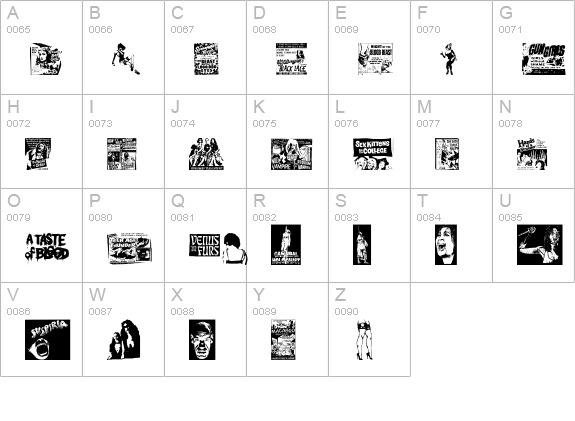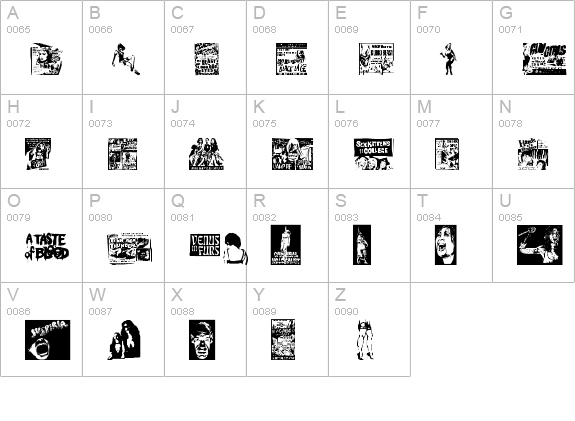
B Movie Dings Font Details
Introducing B Movie Dings, a whimsical and nostalgic font that takes you back to the golden age of B movies. With its quirky and eclectic design, this font captures the essence of the low-budget films that became cult classics. B Movie Dings is the perfect choice for any project that requires a touch of retro charm. Whether you're designing a movie poster, creating a vintage-inspired logo, or adding a unique flair to your social media graphics, this font will bring a sense of fun and playfulness to your work. And the best part? B Movie Dings is available for free! That's right, you can easily download this font without spending a dime. Simply head over to FontsMarket.com and start using it in your projects today. With its wide range of characters and symbols, B Movie Dings offers endless possibilities to let your creativity shine. So why wait? Embrace the spirit of B movies and add a touch of nostalgia to your designs with B Movie Dings. Download it freely at FontsMarket.com and let your imagination run wild!